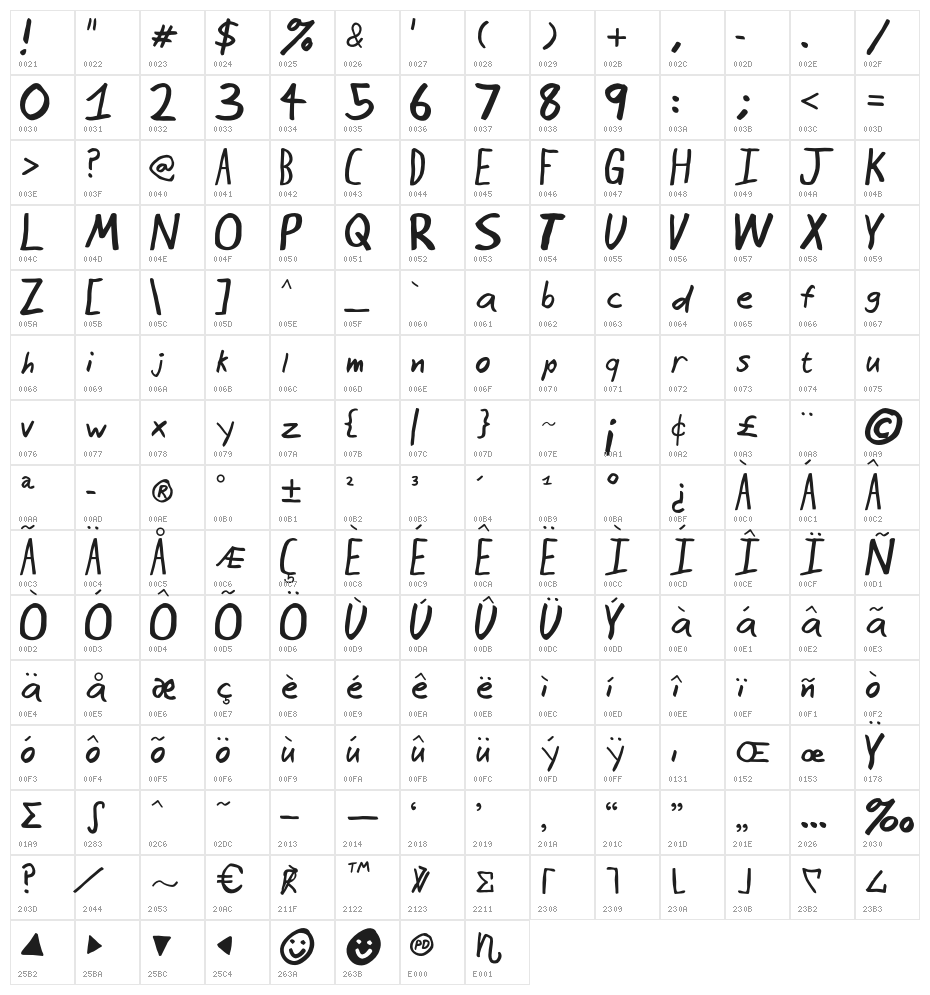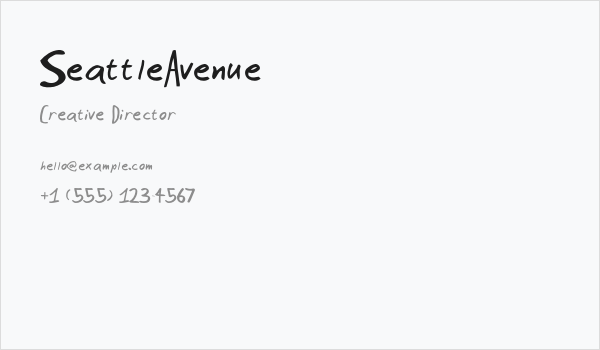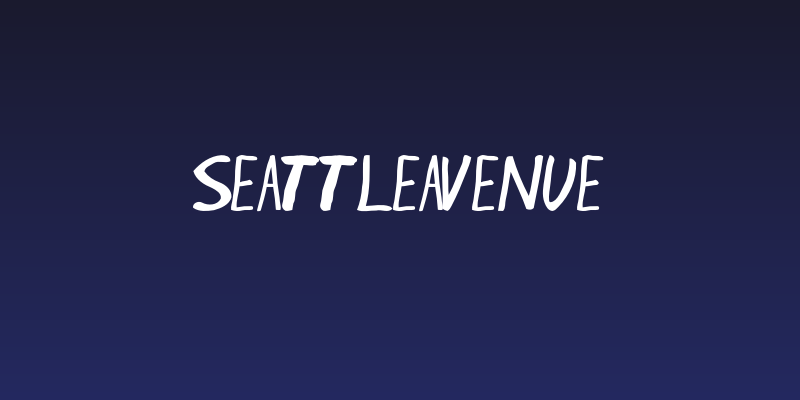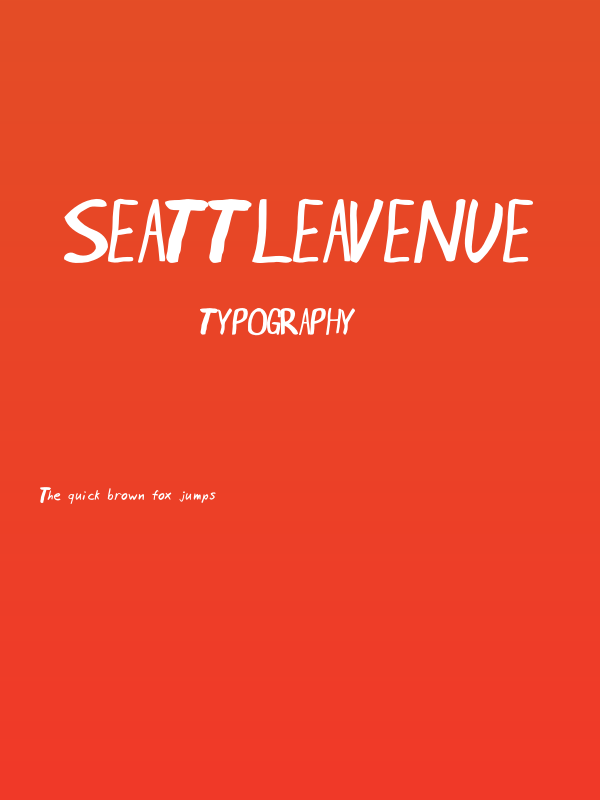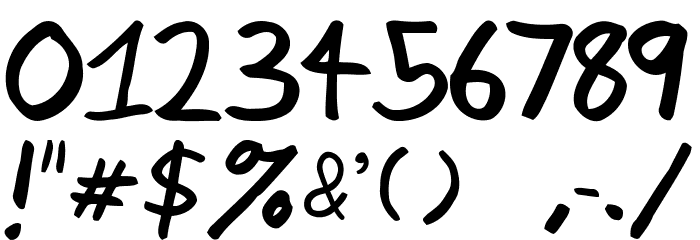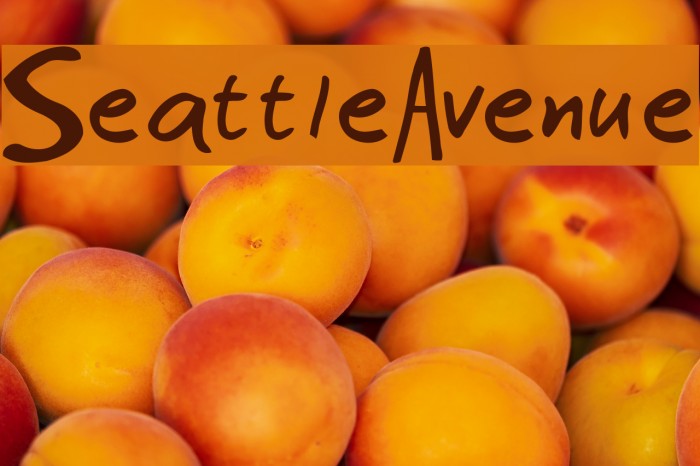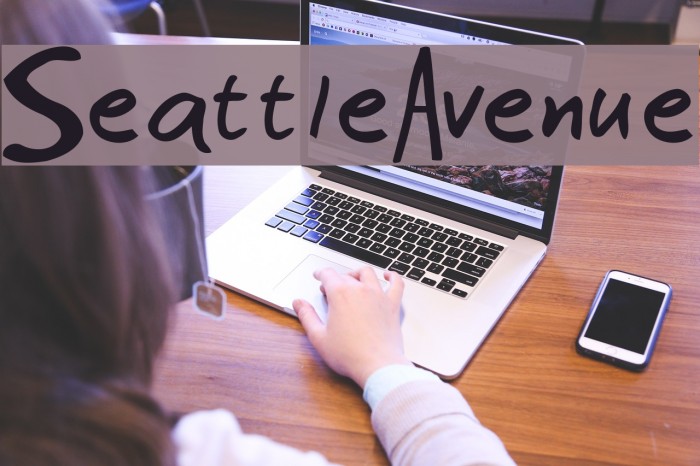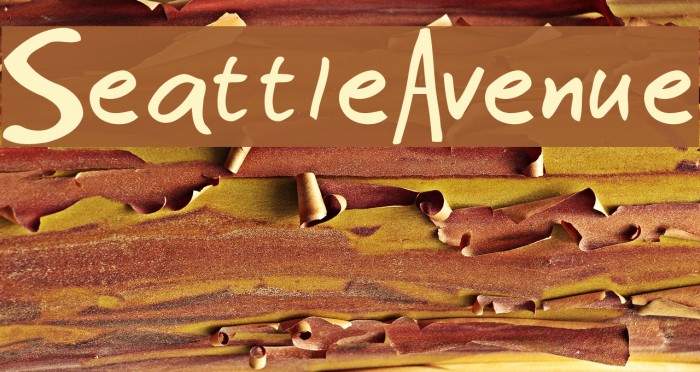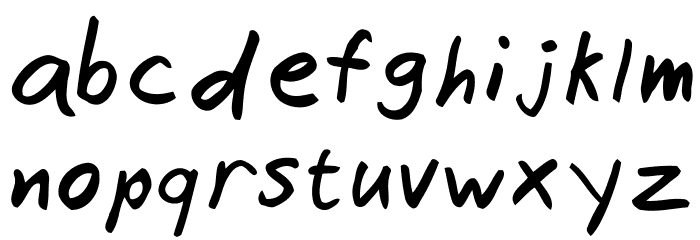
SeattleAvenue Font
SeattleAvenue Description
This font exudes a playful and casual handwritten style, characterized by its uneven strokes and slightly irregular letterforms. The uppercase letters are bold and prominent, while the lowercase letters maintain a consistent flow, adding to the font's informal charm. The numerals are distinct and easy to read, with a quirky touch that aligns with the overall aesthetic. Special characters are creatively styled, maintaining the font's unique personality. This font is perfect for projects that require a personal and approachable feel, such as greeting cards, invitations, or playful branding materials.
| Overall Style | Casual, Playful |
| Use Case | Headlines, Informal text, Branding |
| Proposed Projects | Ideal for greeting cards, invitations, playful branding, and casual social media graphics. |